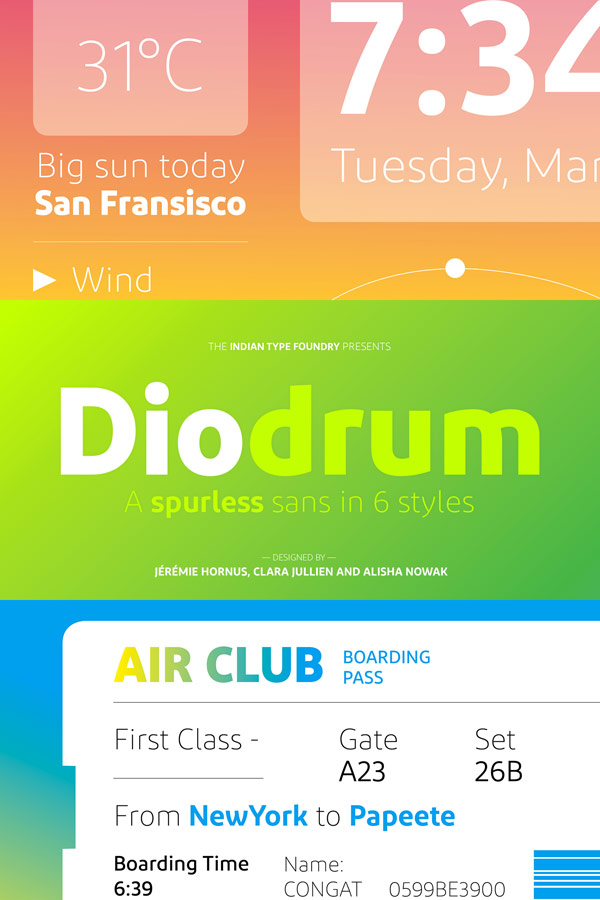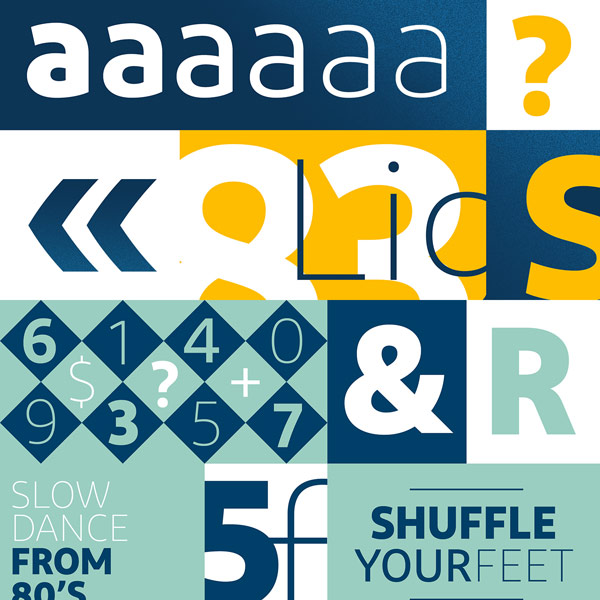
Diodrum, a friendly and modern sans serif font family in 6 styles from Indian Type Foundry.
The design of the Diodrum font family was a collaborative project between Jérémie Hornus, Clara Jullien, and Alisa Nowak of the Indian Type Foundry. This Paris based team of type designers has created this family in 2015. It’s a friendly and modern sans serif font family that comes in 6 styles (ranging from Extralight to Bold). Diodrum is intended for the use as display font. The 6 weights are a great fit for diverse corporate design projects, websites or mobile app interfaces.
Its design is characterized by smooth curved lines. A tall x-height as well as large and open counterforms ensure a very modern and clear typeface. The full family is available on MyFonts as both webfont and conventional desktop font. For further information, please follow the link below.